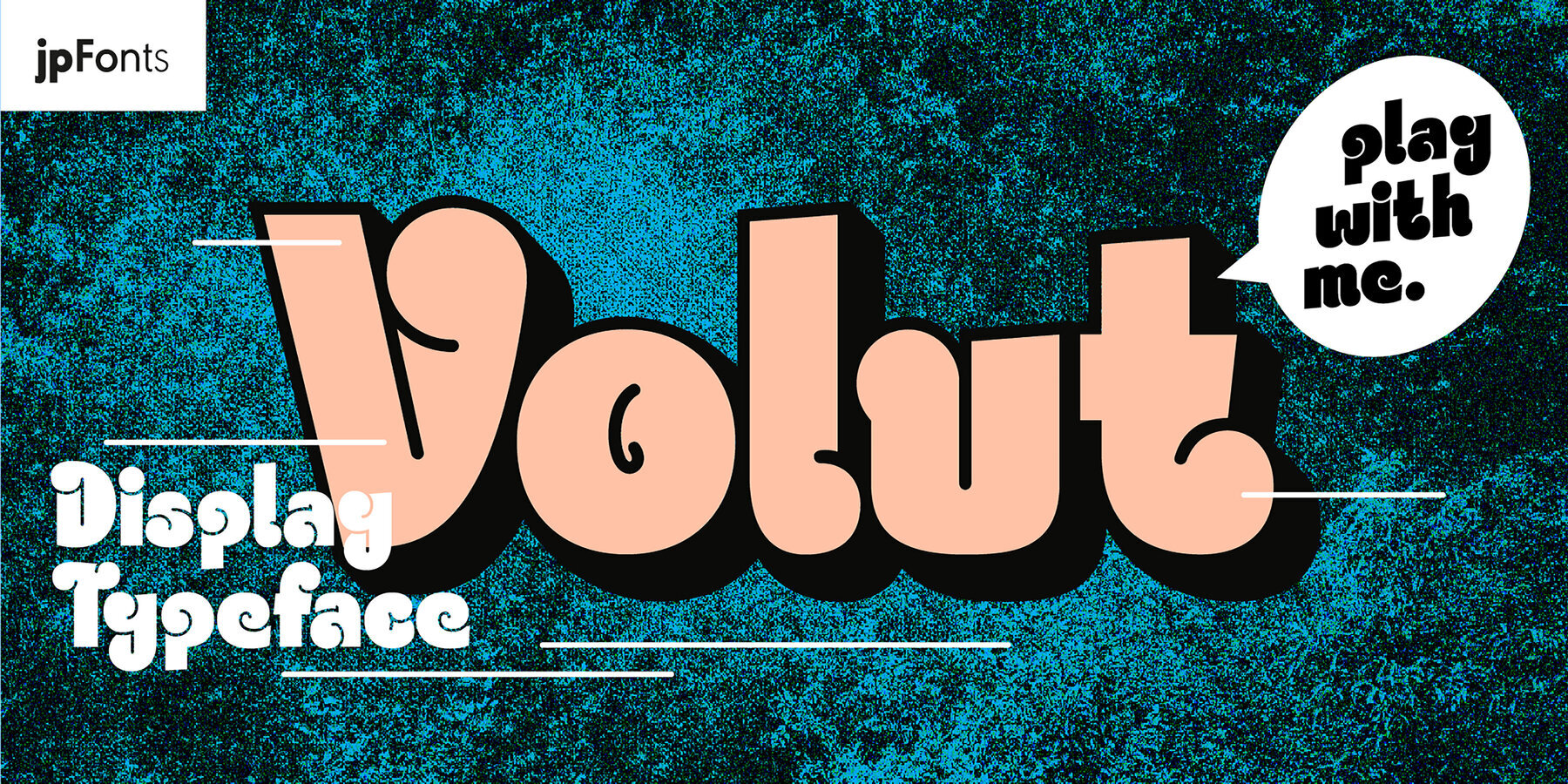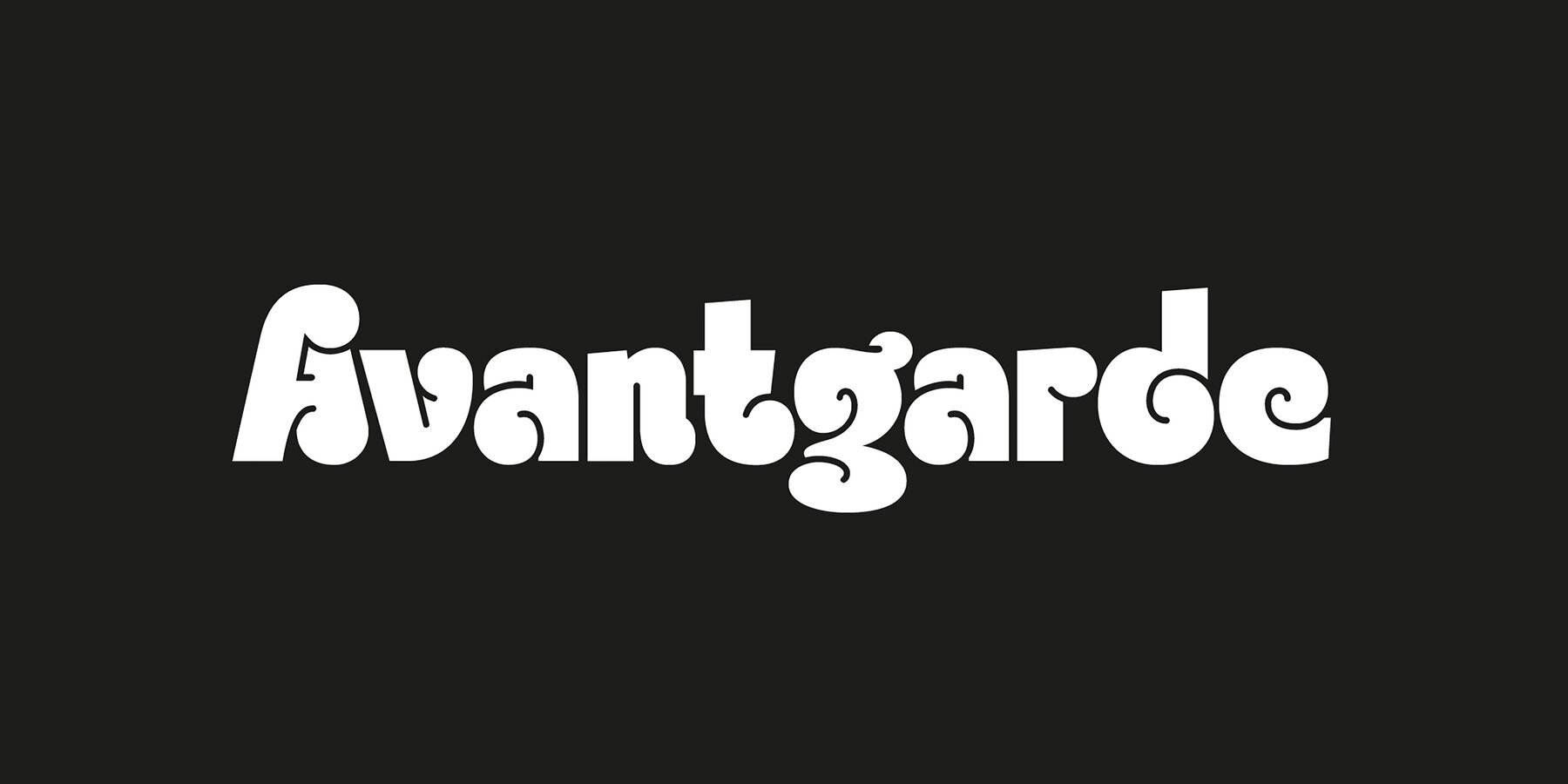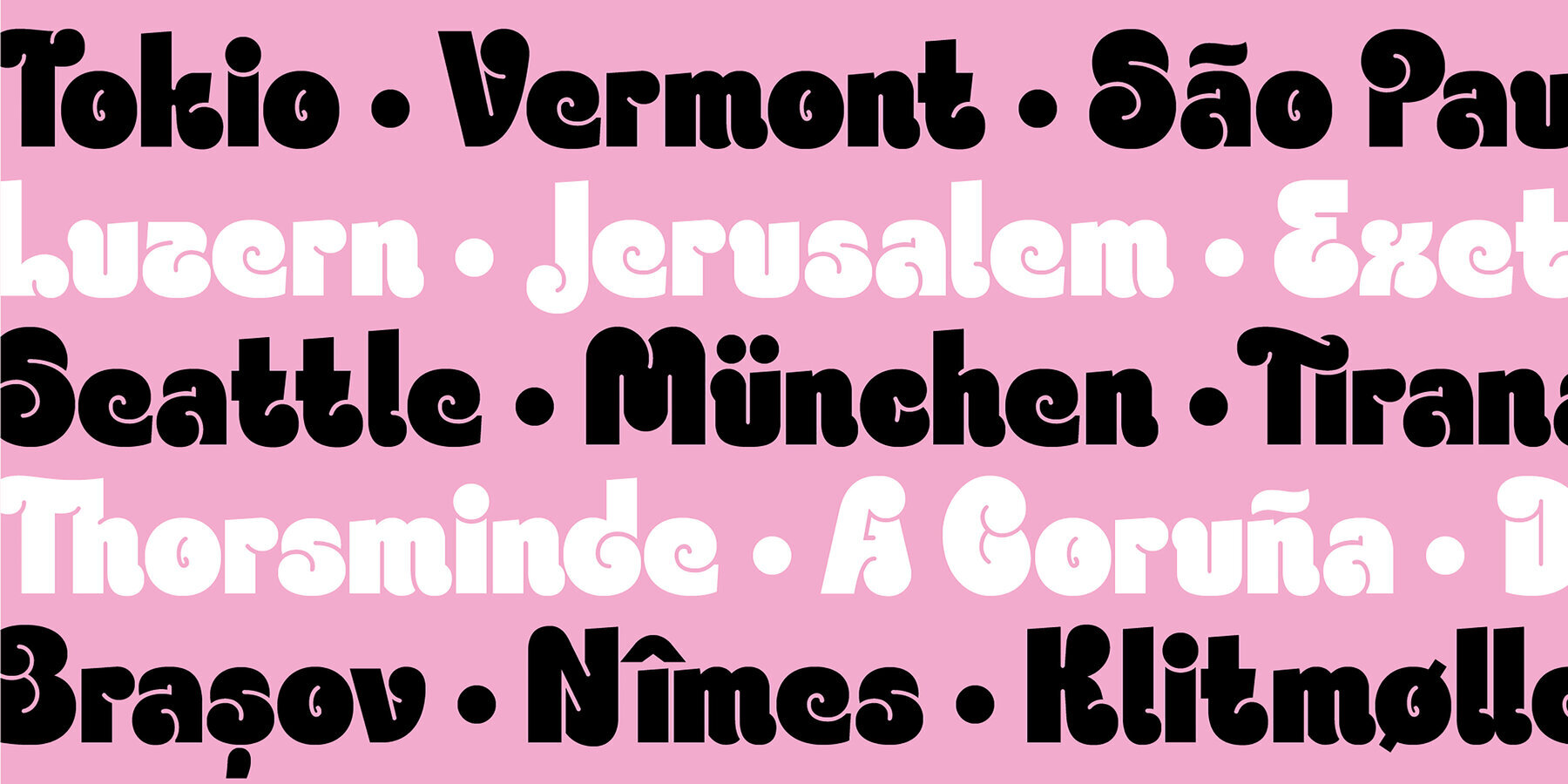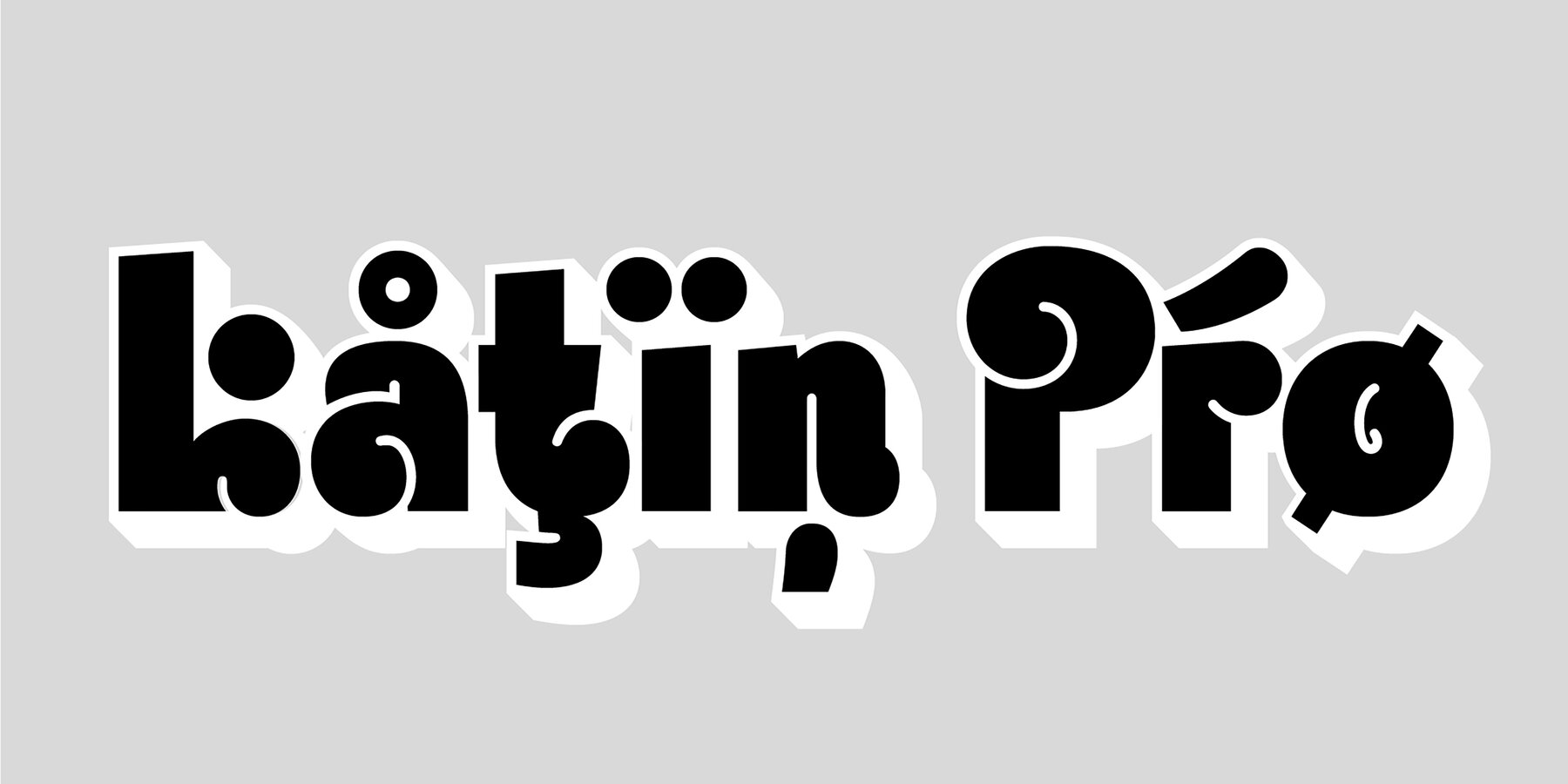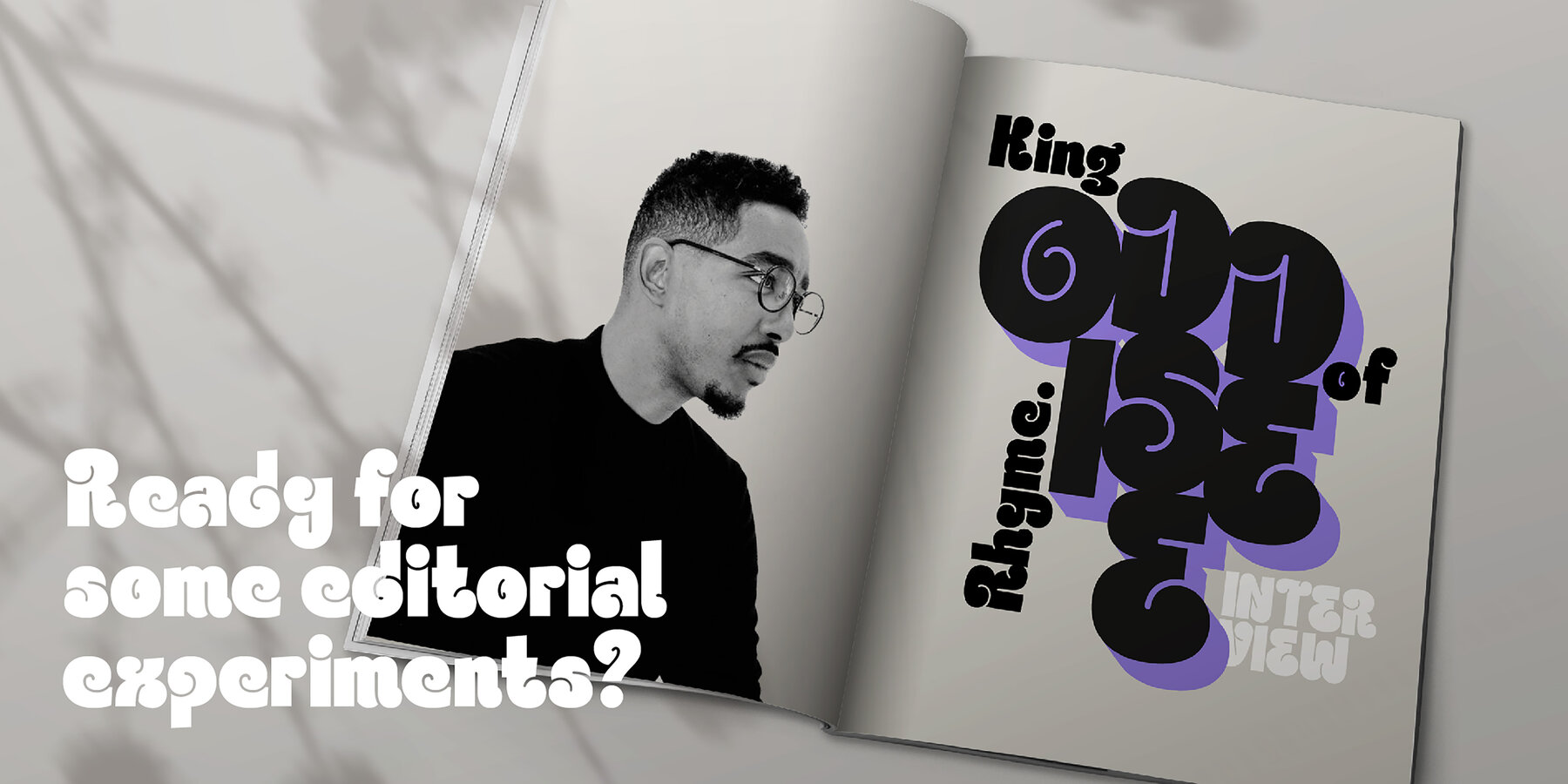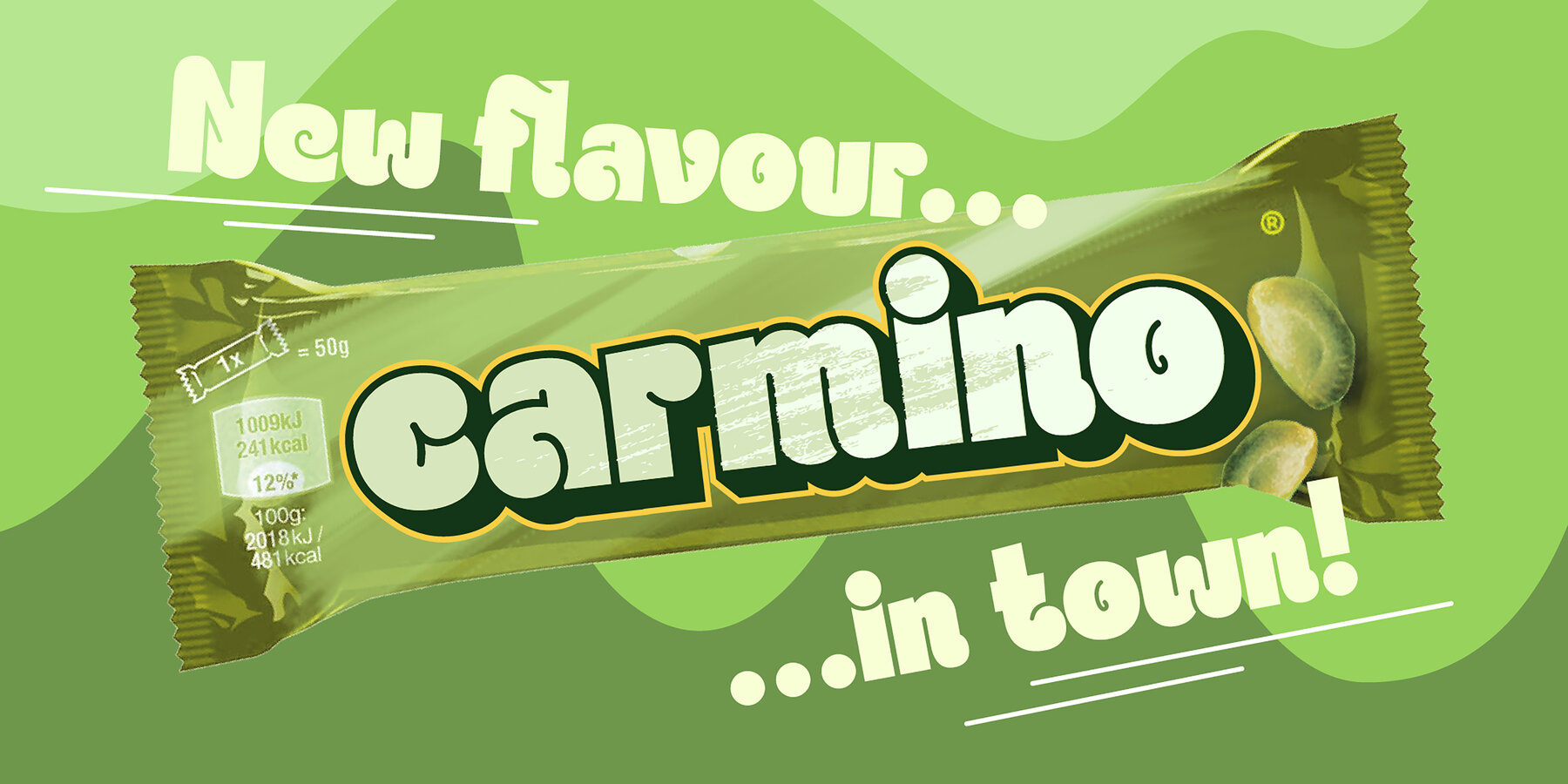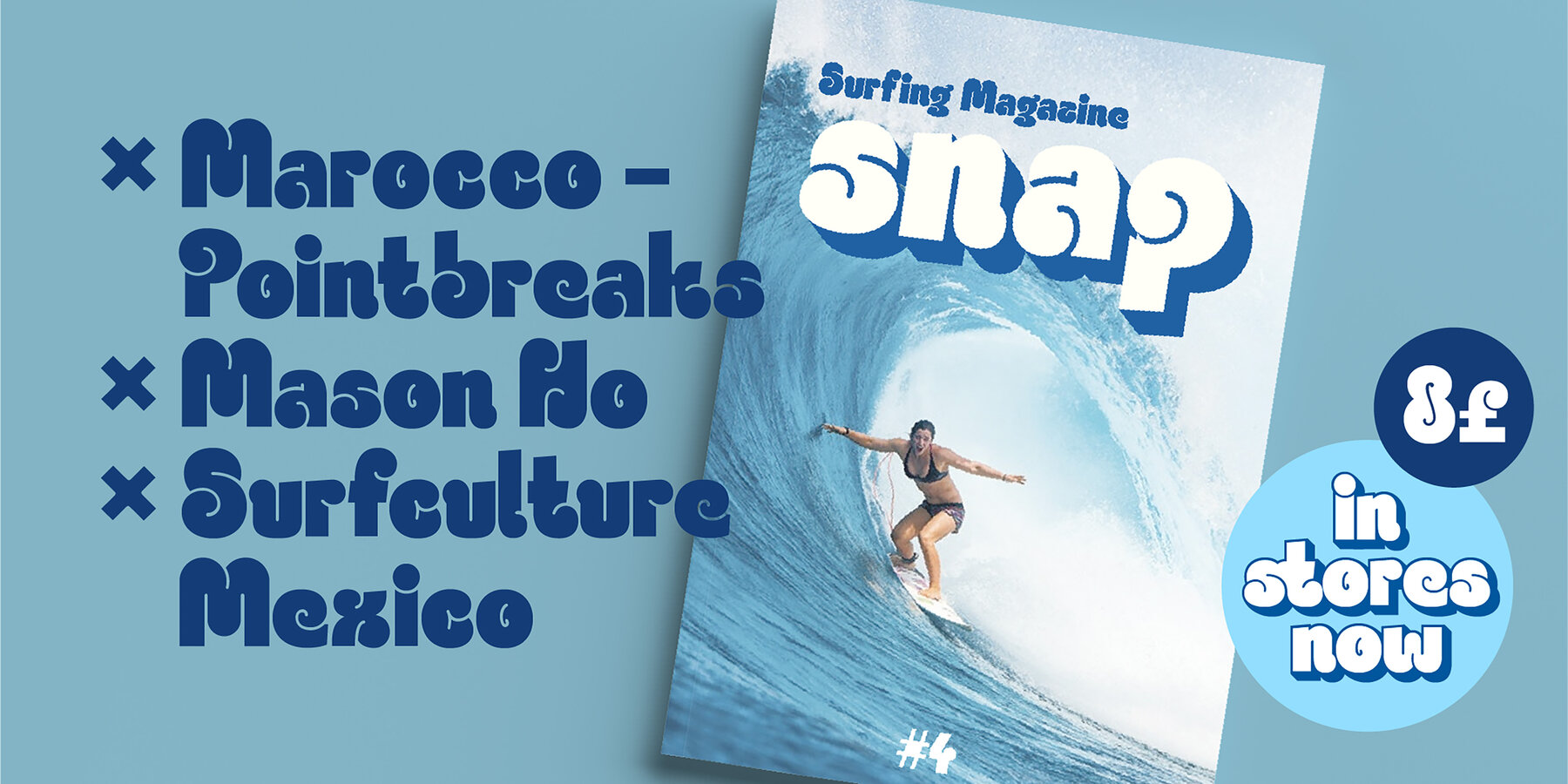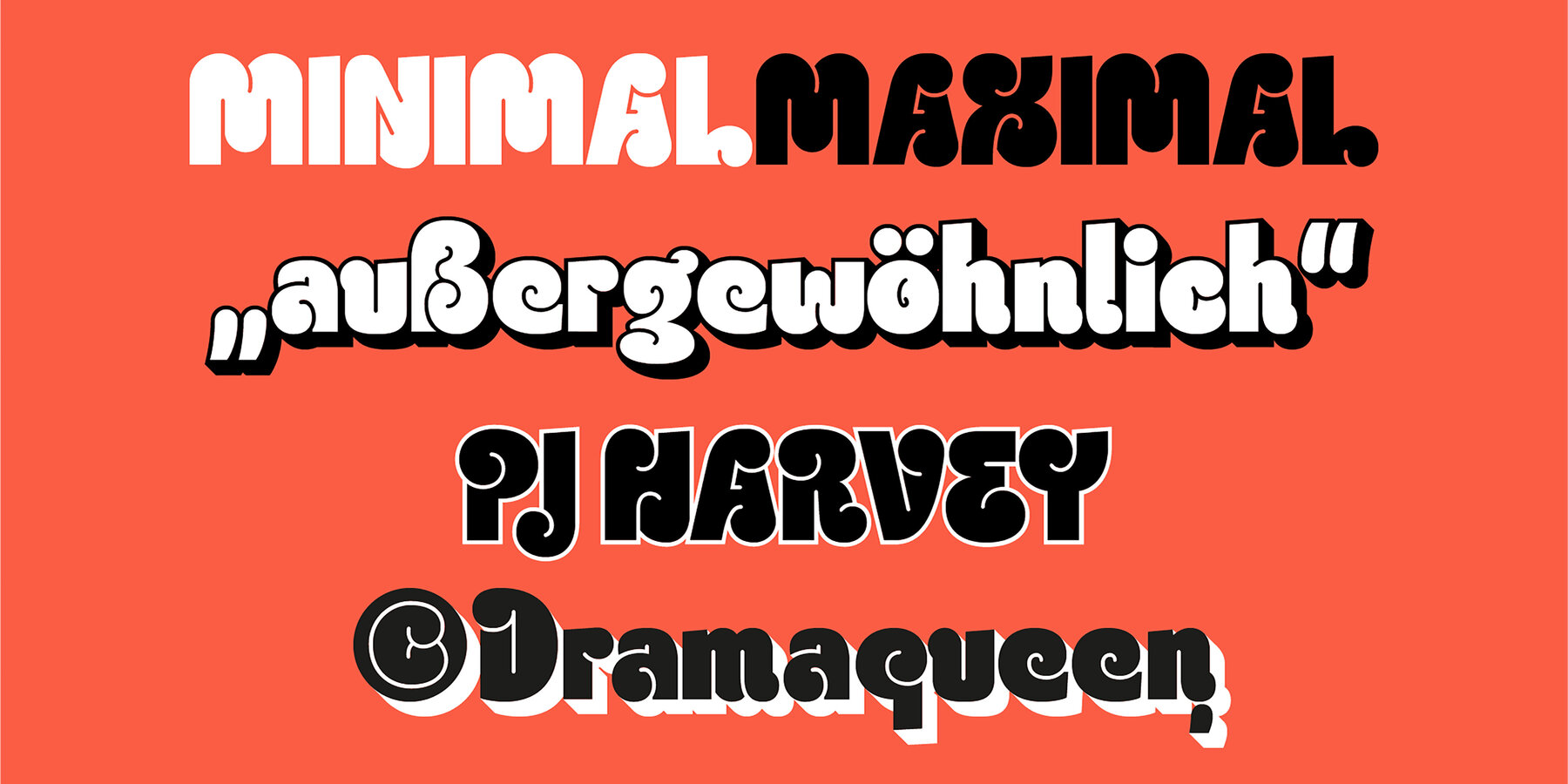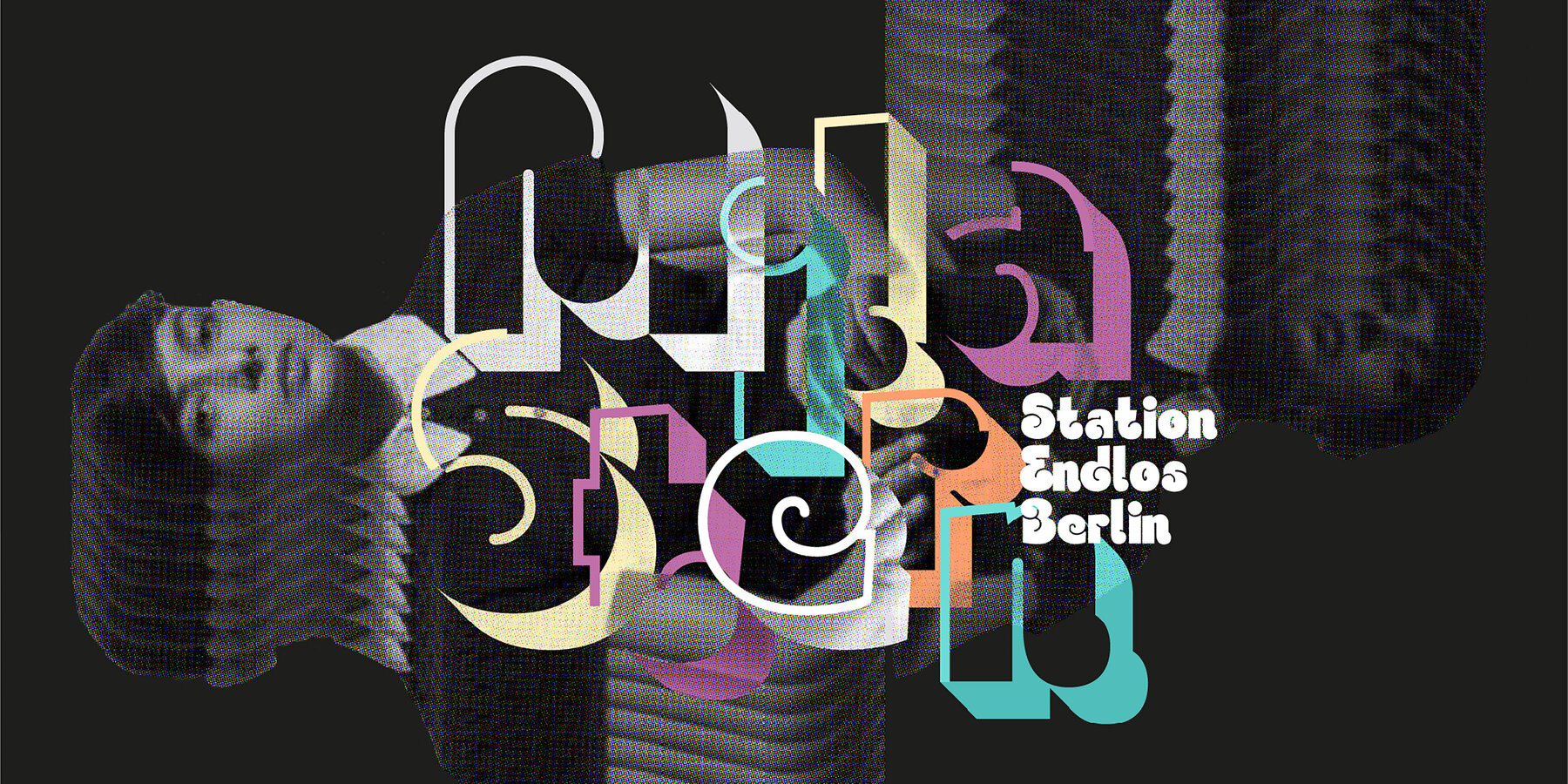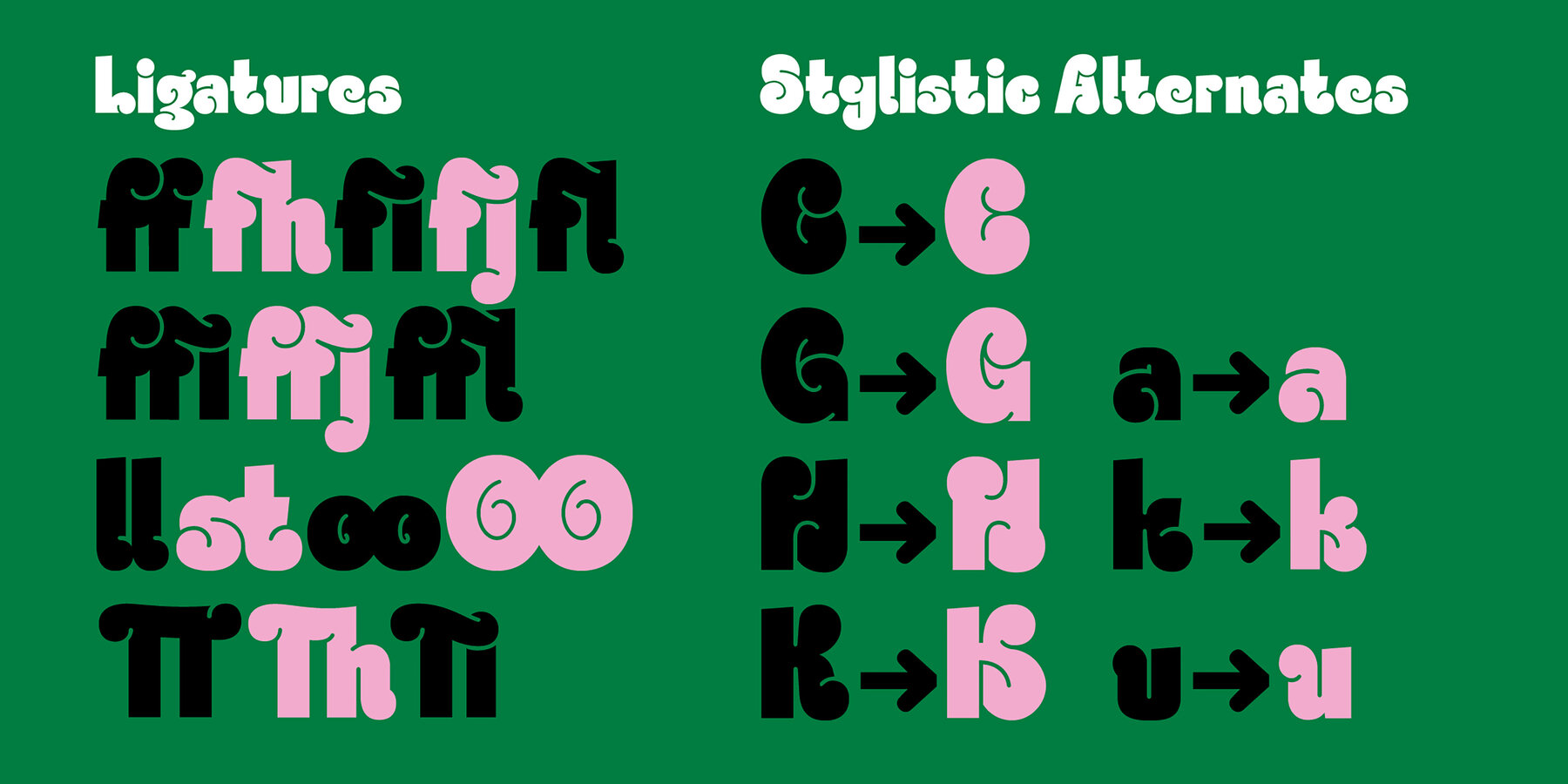
Volut Font
Volut is a very charming display font designed by Christoph Ulherr. The family comes with four design variations as Base, Blocks, Outline and Outline Blocks. It’s touching and kissing characters create an outstanding sex appeal. Volut invites you to play and have fun, just try it. It should only be used in large point sizes beyond 24pt. All fonts include stylistic alternates and special ligatures to guarantee the best typographic quality.